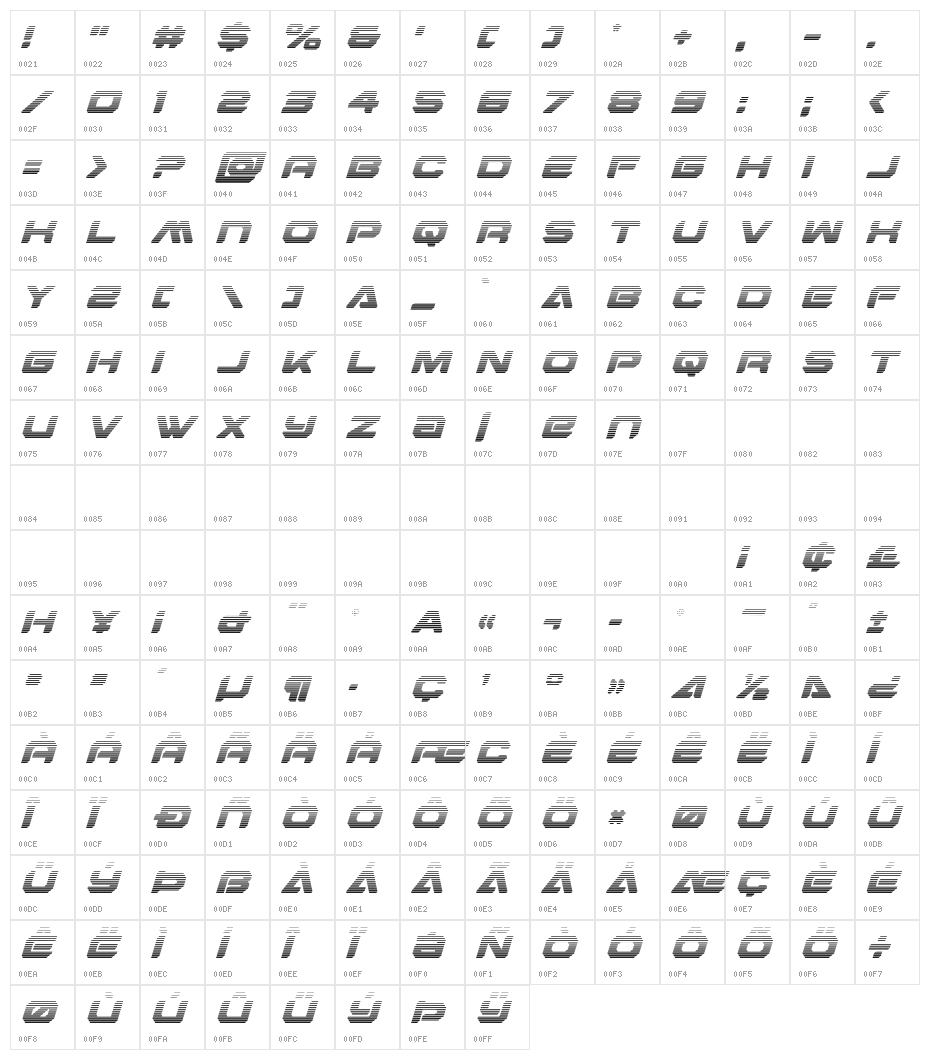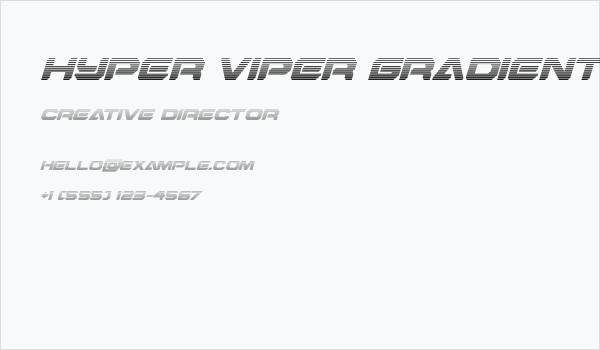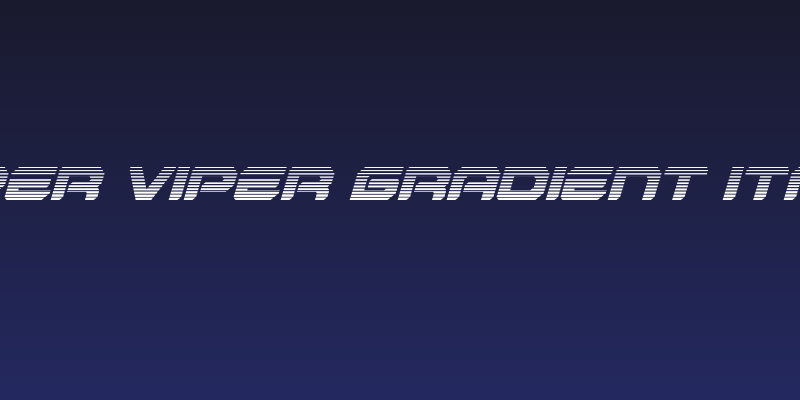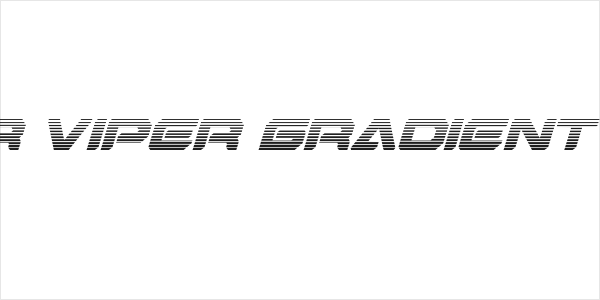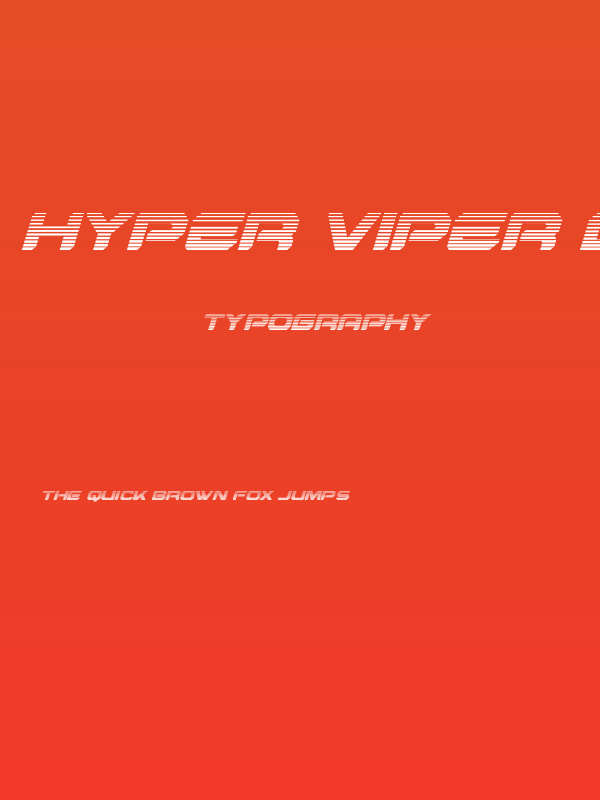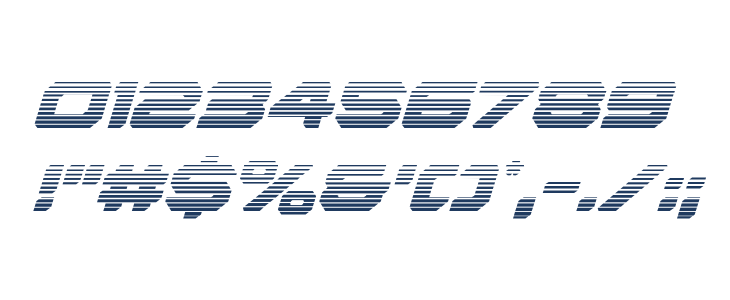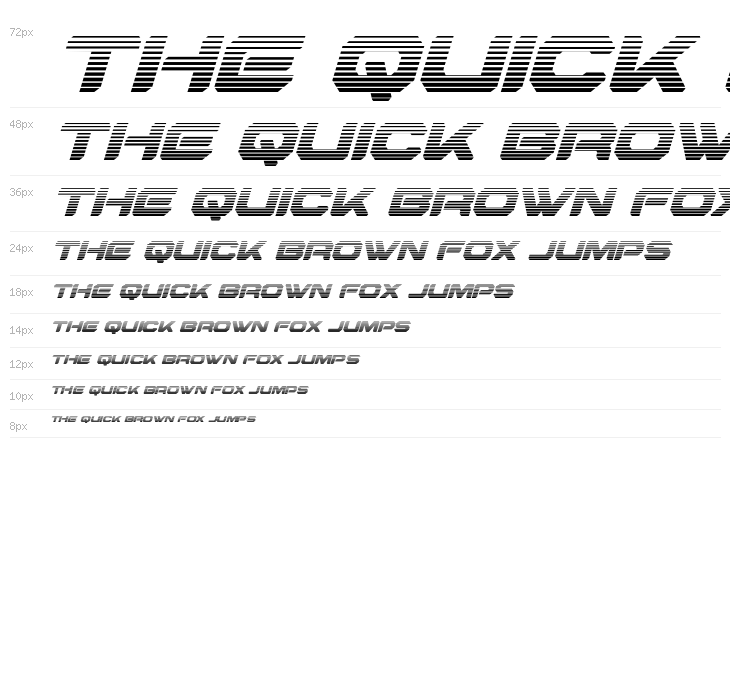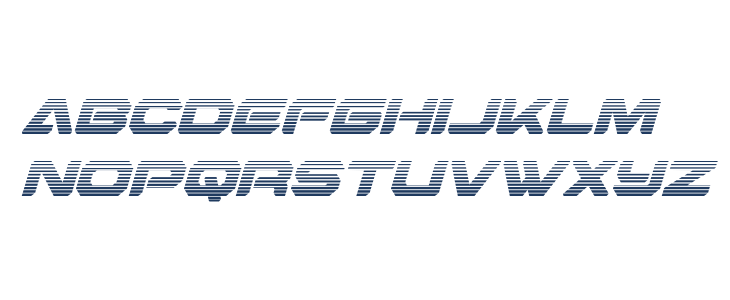
Hyper Viper Gradient Italic Font
Hyper Viper Gradient Italic Description
This font features a dynamic and futuristic design, characterized by its italicized and gradient-striped appearance. The letters are bold and angular, with a distinct slant that adds a sense of motion and speed. The horizontal lines within each character create a gradient effect, enhancing its modern and digital aesthetic. This style is reminiscent of high-tech and sci-fi themes, making it ideal for projects that require a cutting-edge and energetic look. The font maintains consistent spacing and alignment, ensuring readability while still delivering a strong visual impact.
| Overall Style | Futuristic, Modern |
| Proposed Projects | Ideal for tech branding, sci-fi movie posters, video game titles, and futuristic event flyers. |